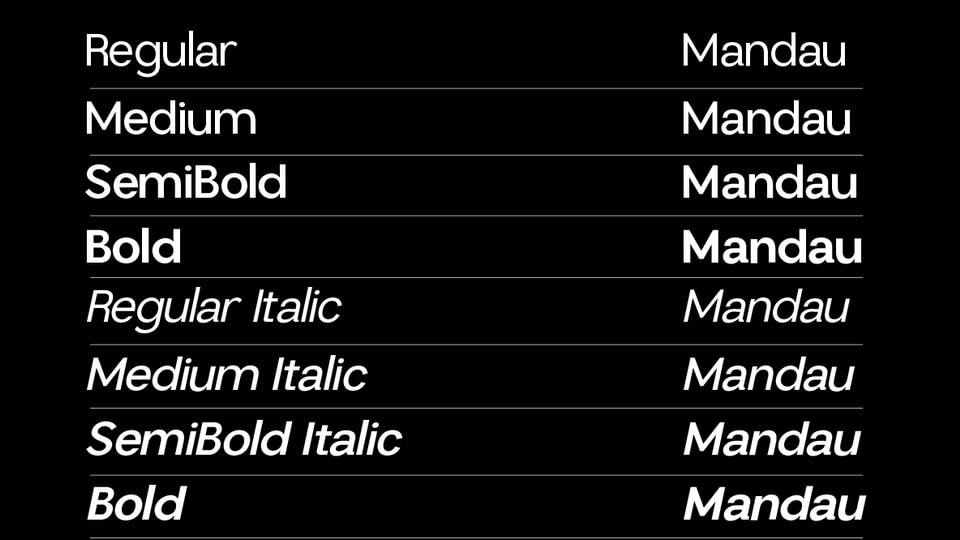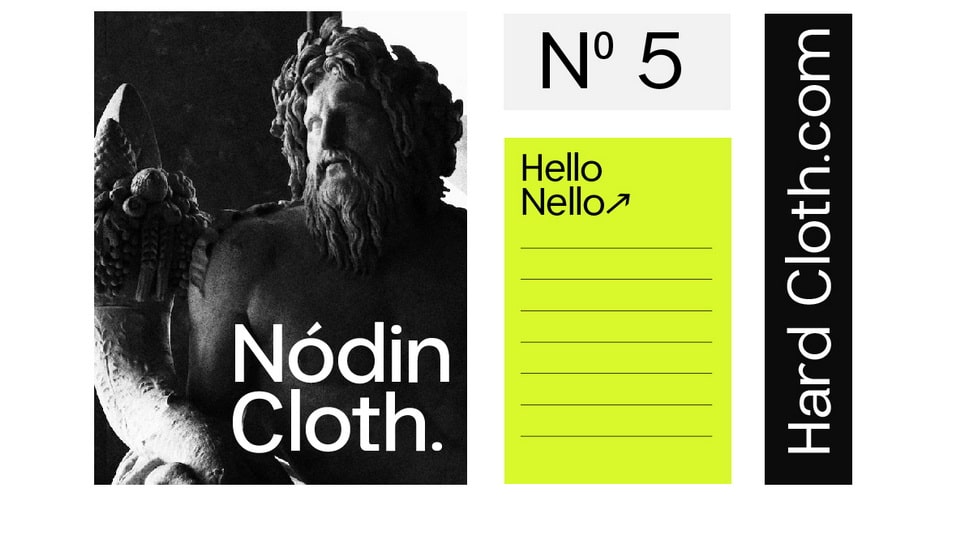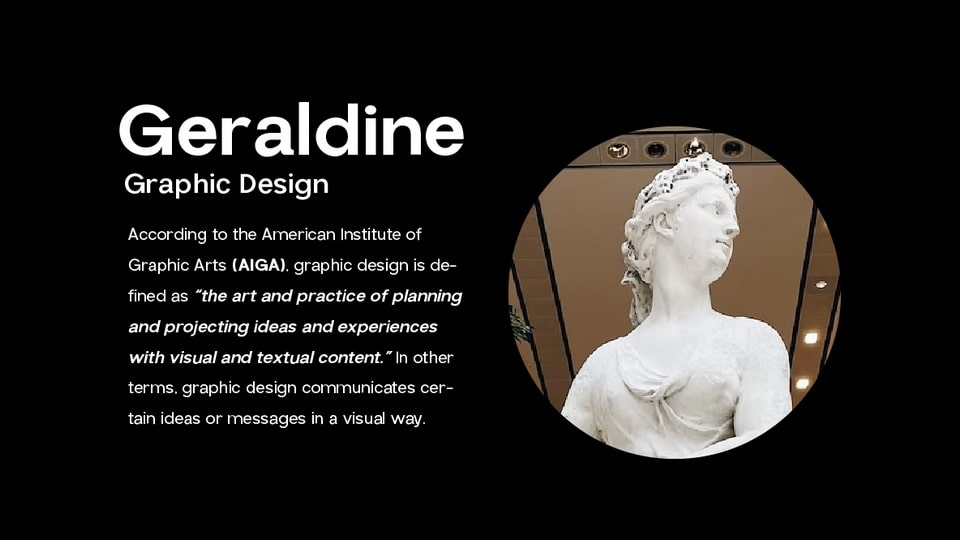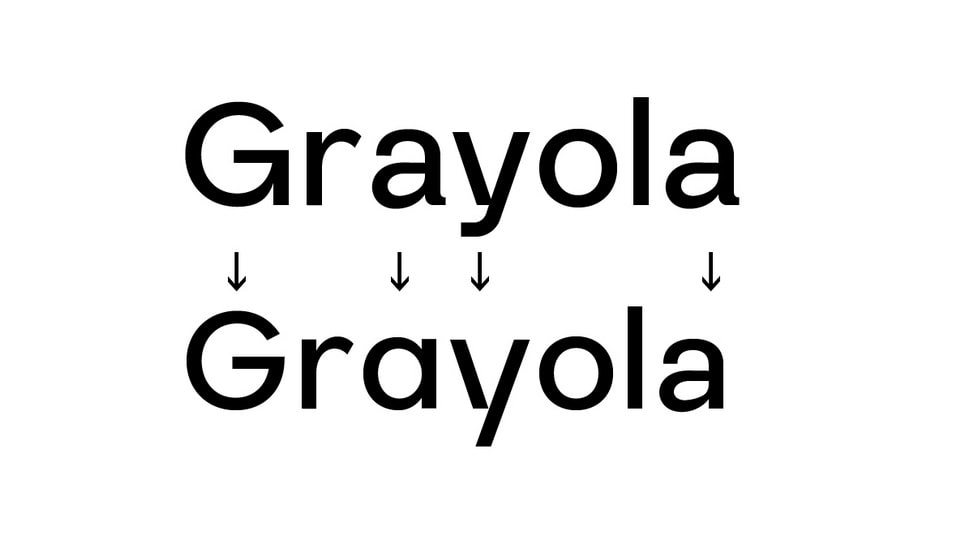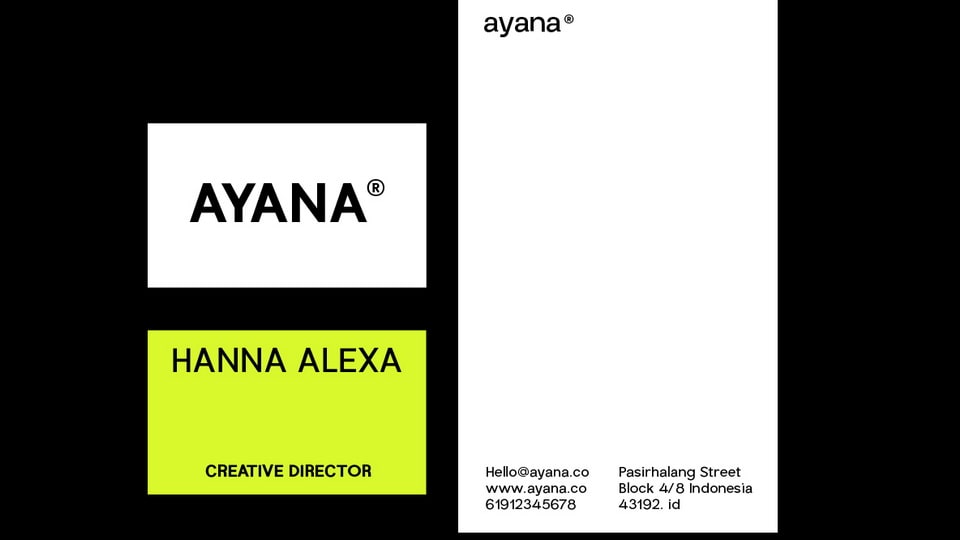
The Mandau Sans Serif Grotesk font is a typeface that has a modern and minimalist design. Inspired by typography styles that were popular in the 20th century, Mandau Sans Serif Grotesk has clean, bold lines, making it easy to read and perfect for a variety of graphic design purposes.
Mandau Sans Serif Grotesk has distinctive characteristics, such as firm thin lines and strong thick lines, as well as very geometric letter shapes. The color of this font tends to be monochromatic, so it is suitable for use in minimalist and modern designs.
Overall, Mandau Sans Serif Grotesk is a very flexible font suitable for a variety of design purposes. With a modern and minimalist design, this font can give your design a professional and elegant impression.